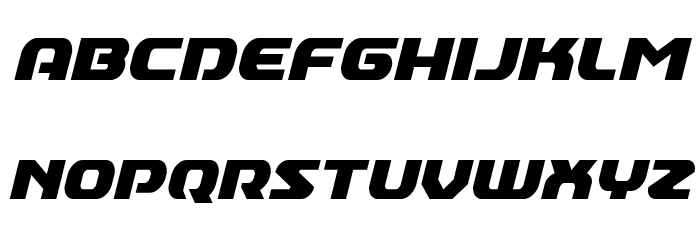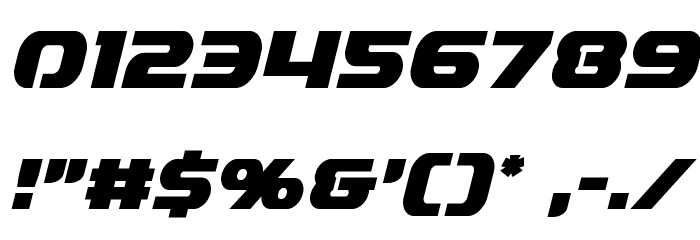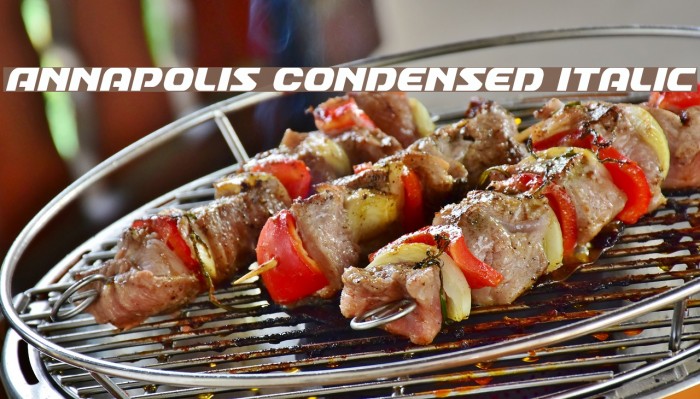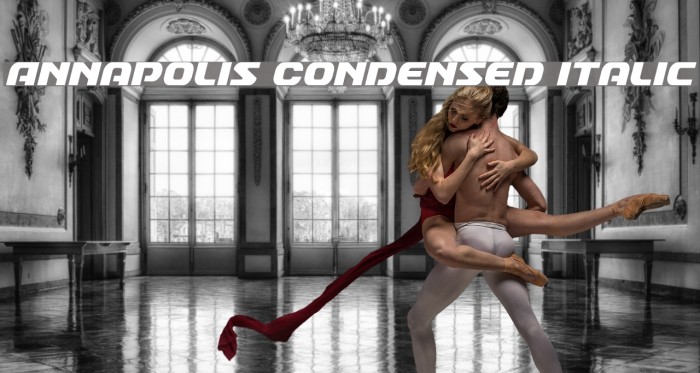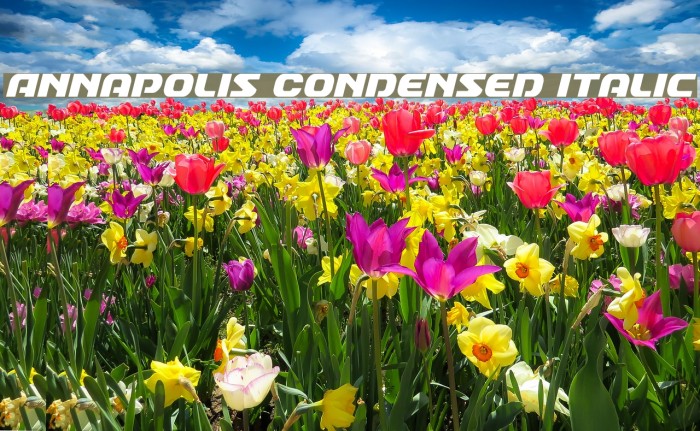
Annapolis Condensed Italic Font
This font presents a bold and dynamic style with a condensed and italicized form. The characters are designed with a forward-leaning slant, giving a sense of motion and energy. The strokes are thick and uniform, providing a strong visual impact. The condensed nature allows for efficient use of space, making it suitable for headlines or titles where space is limited. The font maintains a modern and sleek appearance, with clean lines and minimal embellishments. The consistent stroke width across characters ensures readability while maintaining a bold presence.
A bold, condensed, and italicized font with a modern and dynamic style.
- Proposed Projects: Ideal for sports branding, dynamic posters, modern advertising, and impactful headlines.
- Character Spacing: Tight